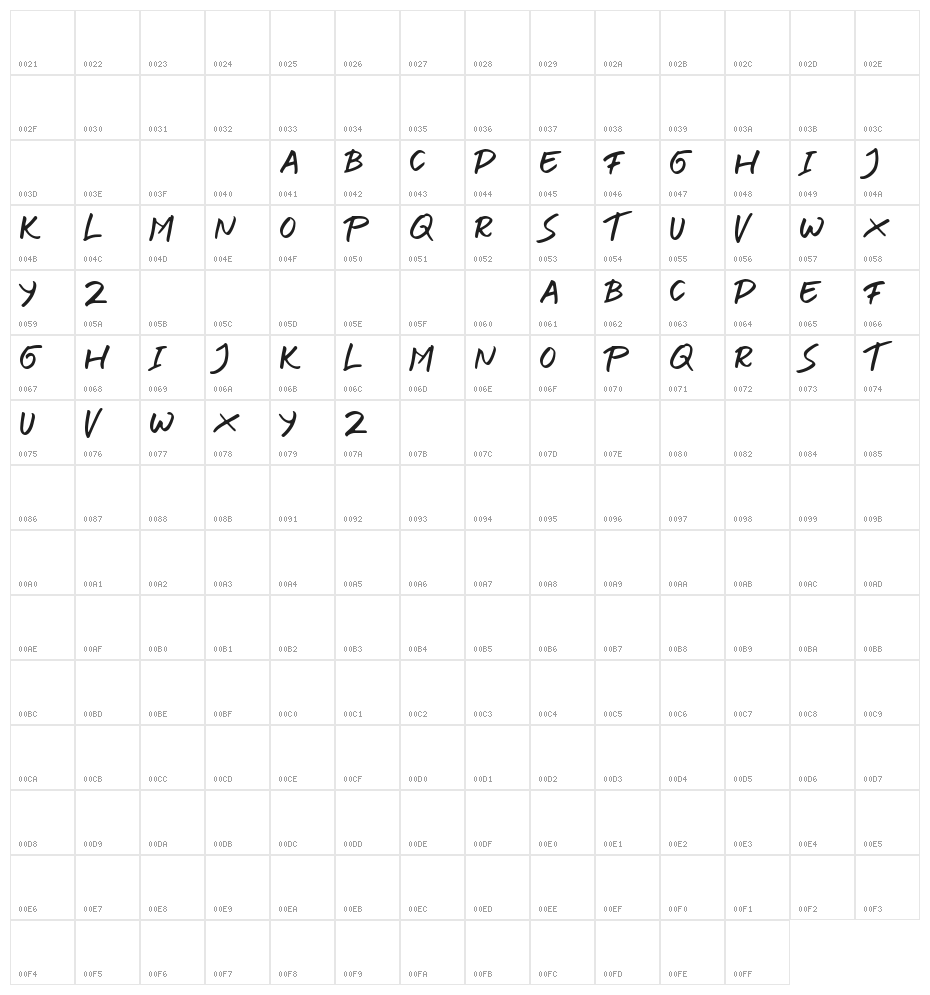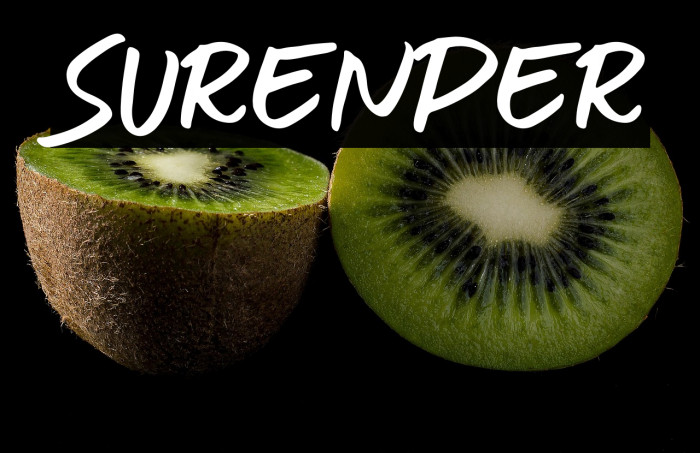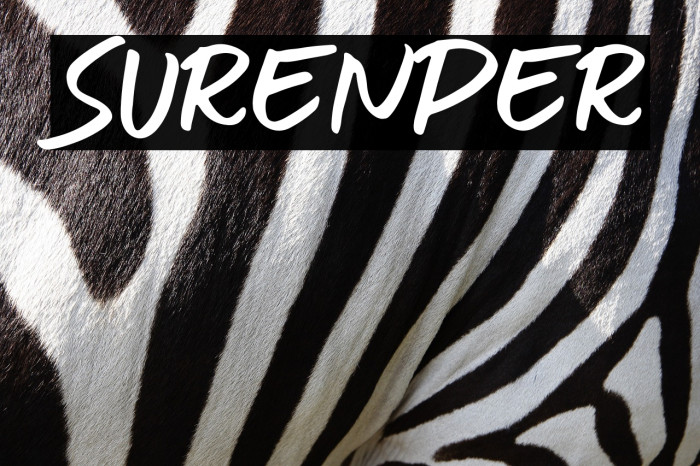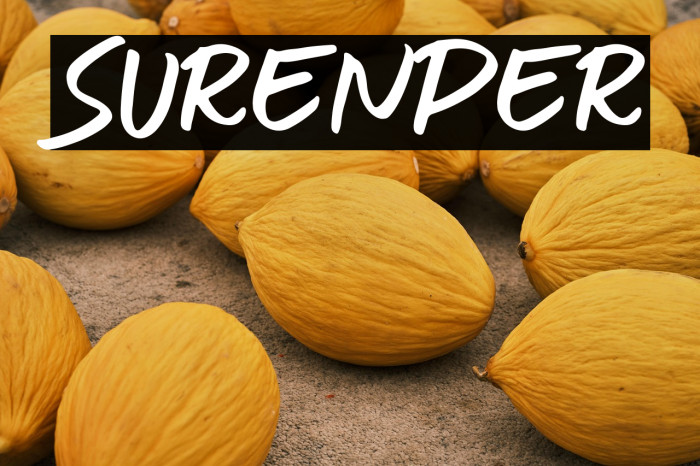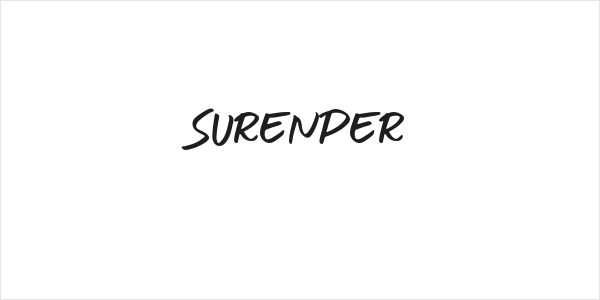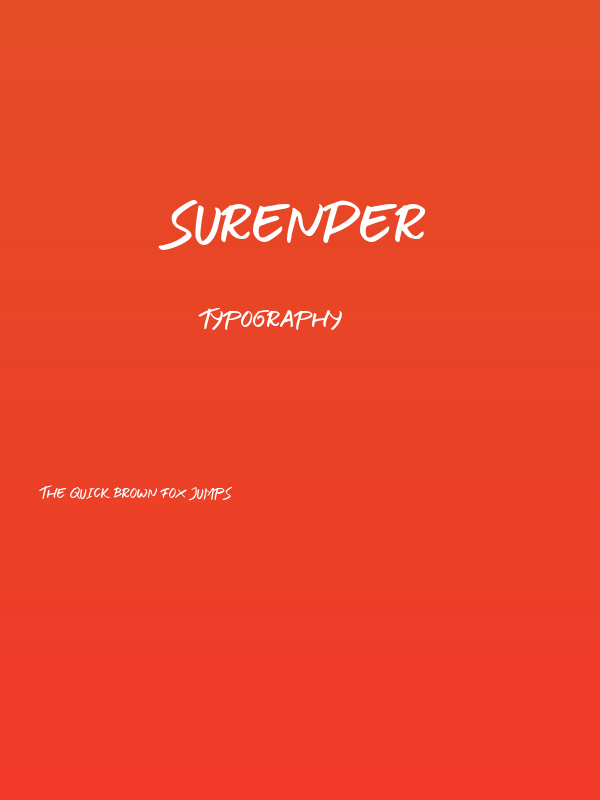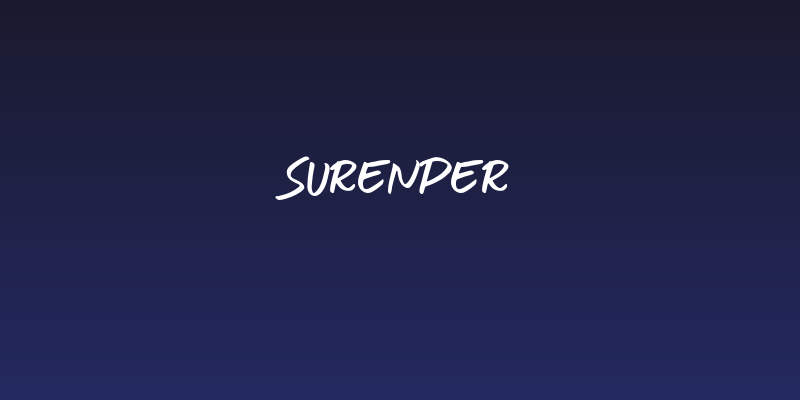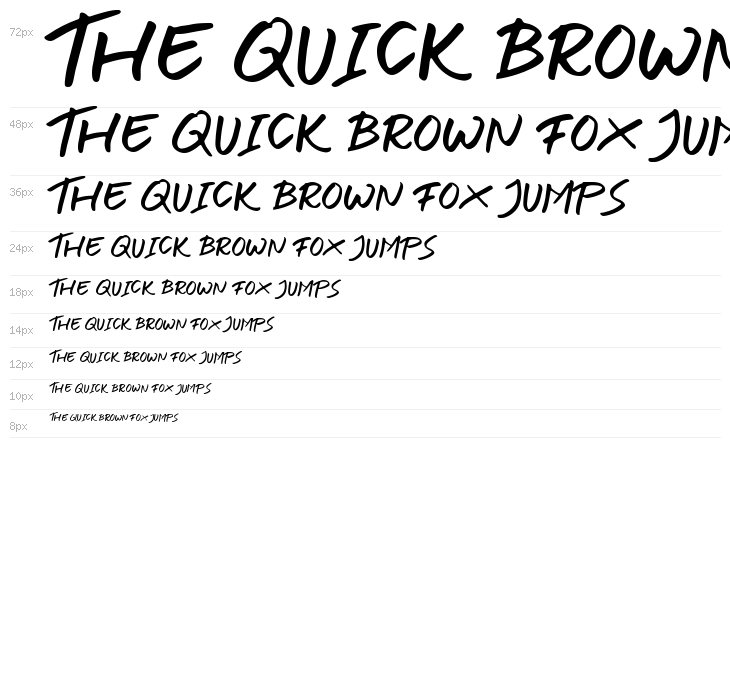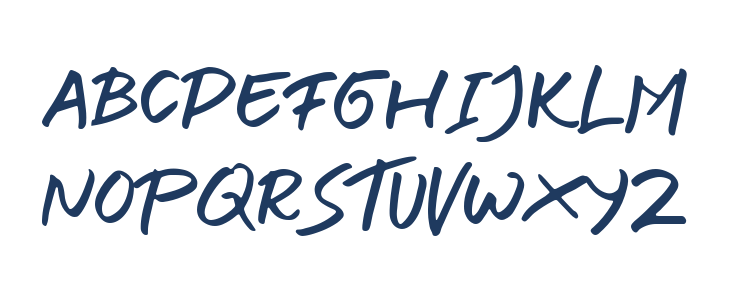
SURENDER Font
SURENDER Description
This font exhibits a dynamic and expressive style, characterized by its handwritten appearance. The letters are fluid and slightly slanted, giving a sense of motion and energy. The strokes are bold and consistent, with a medium contrast between thick and thin lines. The overall look is casual yet sophisticated, making it suitable for projects that require a personal touch. The characters are well-spaced, maintaining readability while preserving the informal aesthetic. This font is versatile, capable of conveying both warmth and professionalism, depending on the context in which it is used.
| Overall Style | Casual, Expressive |
| Use Case | Logos, Headlines, Informal Text |
| Proposed Projects | Ideal for greeting cards, personal branding, social media graphics, and informal invitations. |